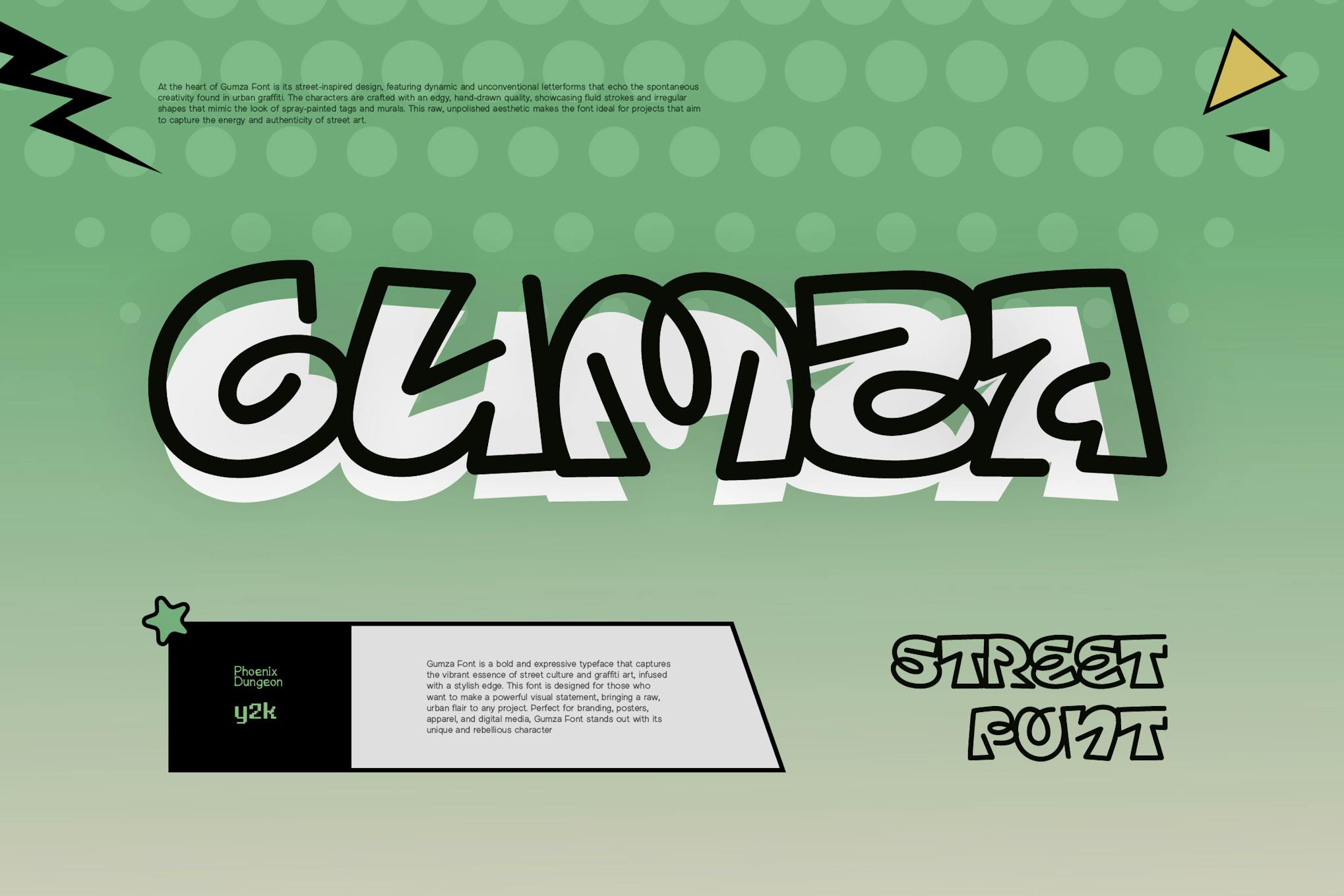
Gumza Font
Gumza Font bounces across playful candy store signage, flexible fitness studio branding, stretchy children's toy packaging, bouncy playground equipment graphics, elastic dance studio materials, rubbery product designs, springy trampoline park identities, chewy confectionery labels, flexible technology presentations, bouncy children's book illustrations, stretchy fashion campaigns, and elastic marketing materials where playful flexibility and bouncy charm create irresistibly fun experiences.
This playful typeface generates excitement through its perfect embodiment of elastic energy and bouncy charm that creates typography with infectious flexibility and irresistible playful appeal. Gumza Font captures the essence of elastic fun with its delightfully flexible letterforms that suggest the satisfying stretch of bubble gum and the bouncy resilience of rubber materials. The font's playful design approach incorporates elements that evoke springiness, flexibility, and the joyful bounce that defines childhood play and carefree entertainment. Its distinctive character reflects the adaptability, resilience, and cheerful optimism that define authentic playful experiences and flexible problem-solving approaches.
The Gumza Font family encompasses multiple elastic variations including Regular, Light, Medium, Bold, and Bouncy versions, each maintaining the font's characteristic playful flexibility while offering different levels of elastic impact. The collection features stretchy styling, bouncy effects, and flexible textures that enhance its playful aesthetic. Additional elements include bubble symbols, spring ornaments, elastic decorative borders, and bouncy flourishes that reinforce the font's connection to flexible fun and playful entertainment.
Children's brands and playful organizations consistently select Gumza Font Free Download for projects requiring typography that communicates flexible fun and bouncy entertainment value. This remarkable typeface excels in applications where creating joyful experiences and conveying playful adaptability are essential for family and entertainment success. The font's elastic qualities make it particularly effective for toy companies, children's entertainment venues, and flexible service brands targeting audiences who appreciate playful innovation and adaptable solutions.
Whether you're designing children's product packaging, creating playful entertainment materials, developing flexible service campaigns, or crafting bouncy brand communications, Gumza Font delivers unmatched playful authenticity. Its ability to convey elastic fun, bouncy charm, and flexible creativity makes it invaluable for entertainment brands seeking typography that genuinely captures the joy of playful flexibility. The font's bouncy presence ensures your designs will communicate the cheerful adaptability and elastic entertainment that define exceptional playful communications and flexible brand experiences.